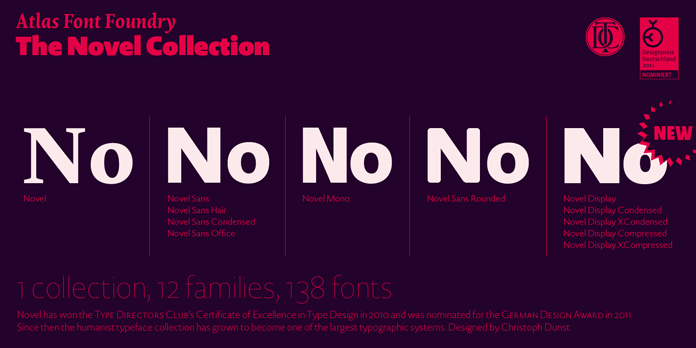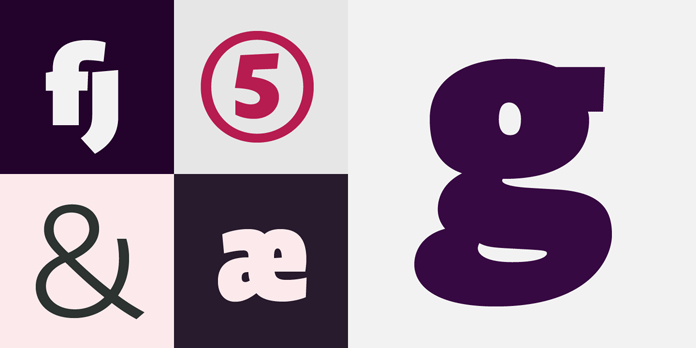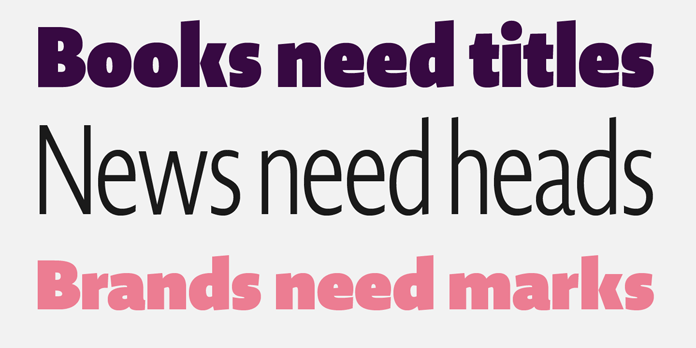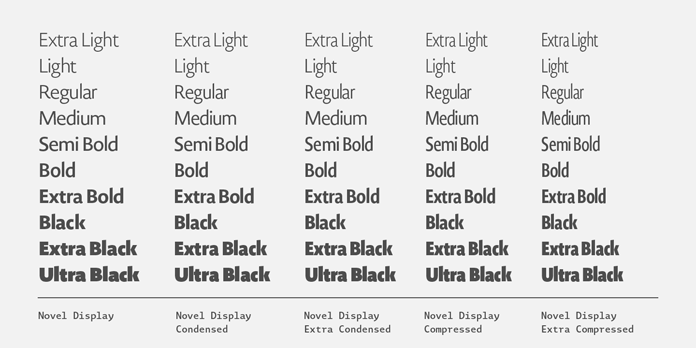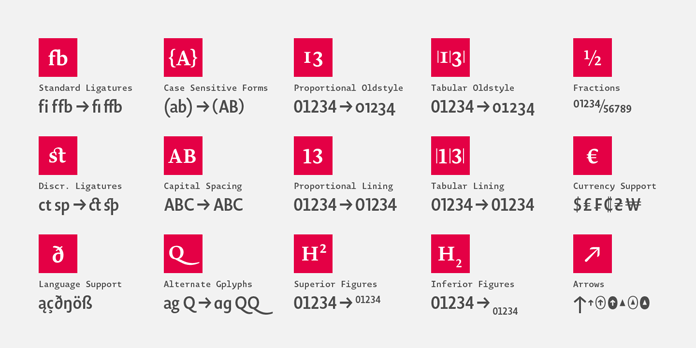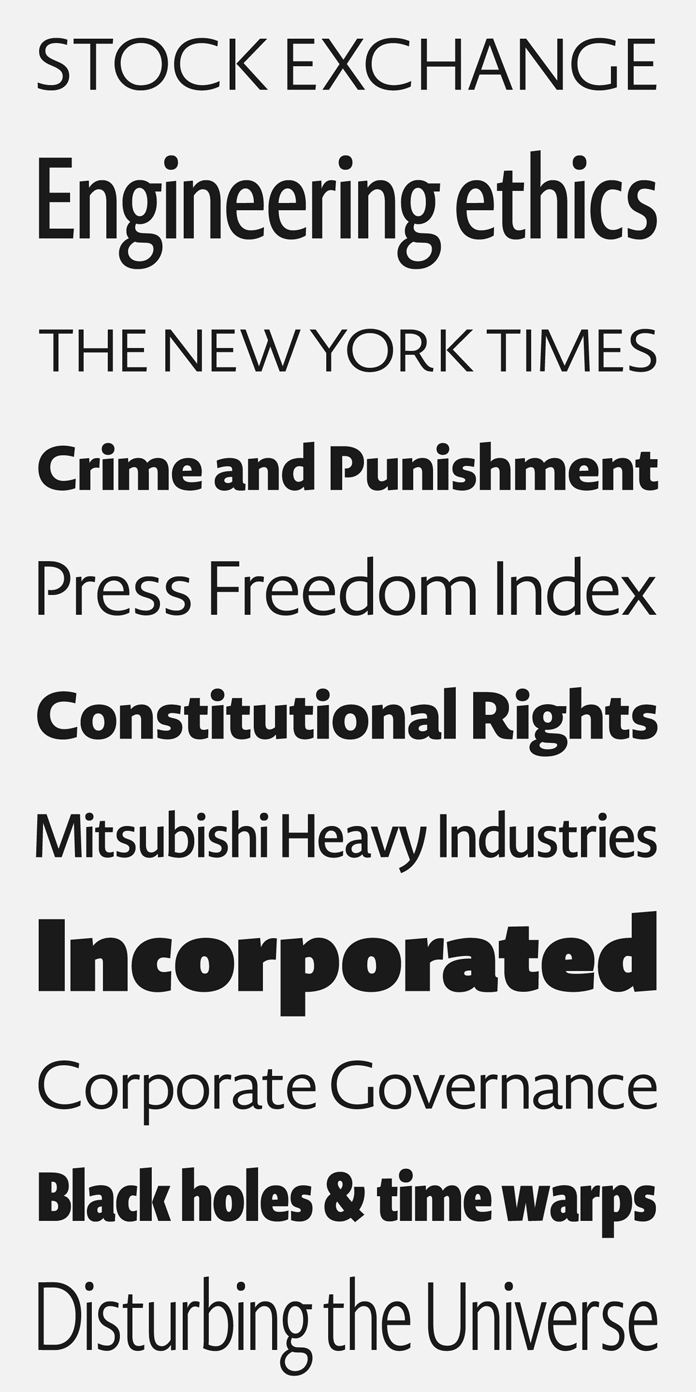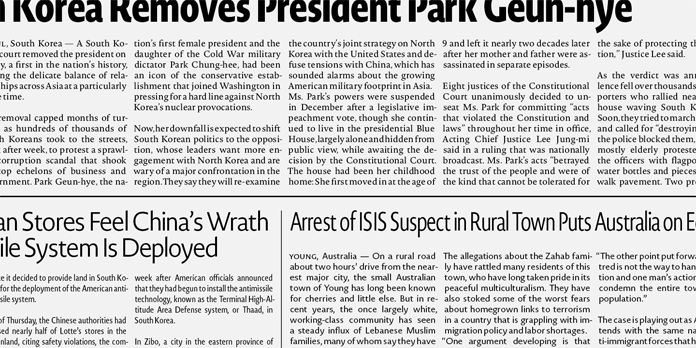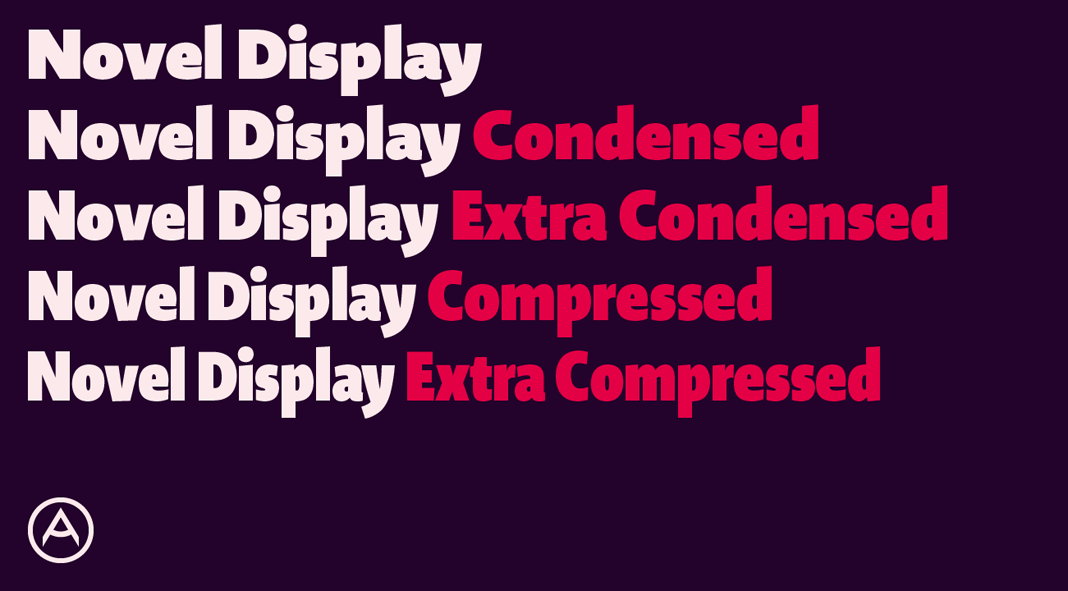
Novel Display, a humanist sans serif font family for headlines and display sizes.
Atlas Font Foundry is an independent type foundry based in Berlin, Germany. They are designing and publishing fonts for more than 10 years. Novel Display is a humanist sans serif type family that comes in 5 widths and 50 fonts. The family is the latest addition to the Novel Collection, a humanist typeface system containing 12 font families and 138 fonts in total. You can get further information below the image. Please note, the complete family is currently available as introductory offer, just click on the following link.
Based on a humanist style, the family has been designed for highest professional needs. Novel Display is equipped with 788 glyphs and lots of typographic features including an extra set of alternate glyphs, numerous ligatures, lining figures, hanging figures, positive and negative circled figures for upper and lower case, superior and inferior figures, fractions, multiple language support, arrows for uppercase and lowercase characters, and many more OpenType features. For additional information, just follow the link below.